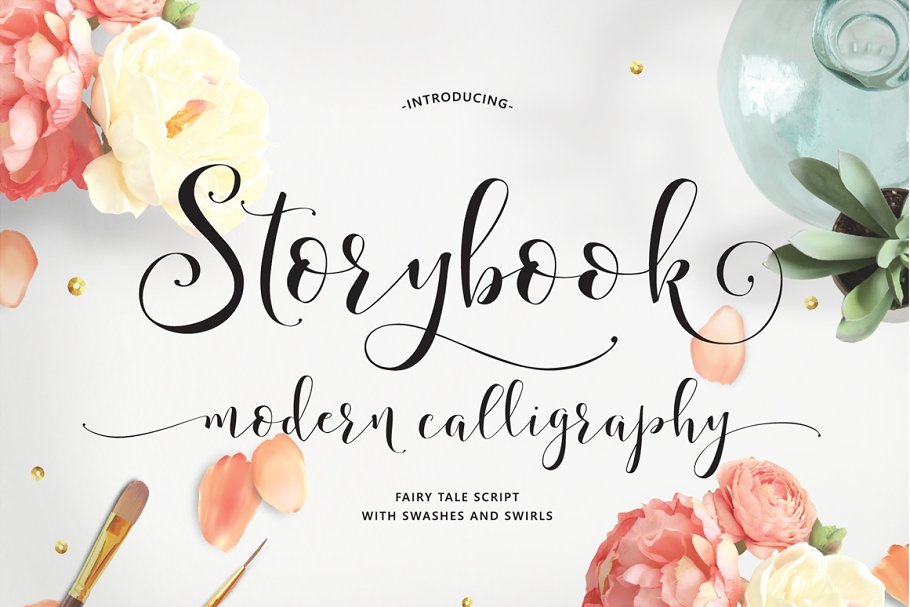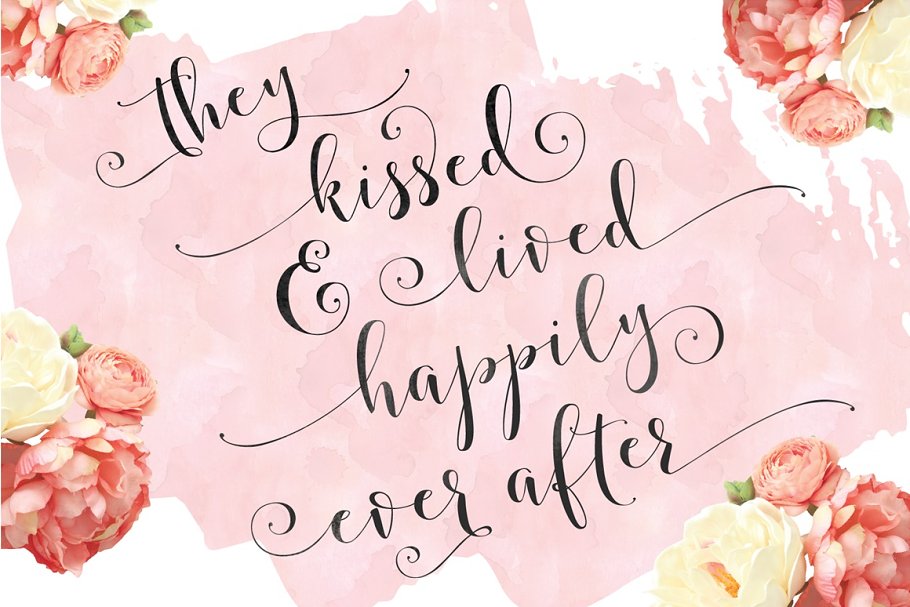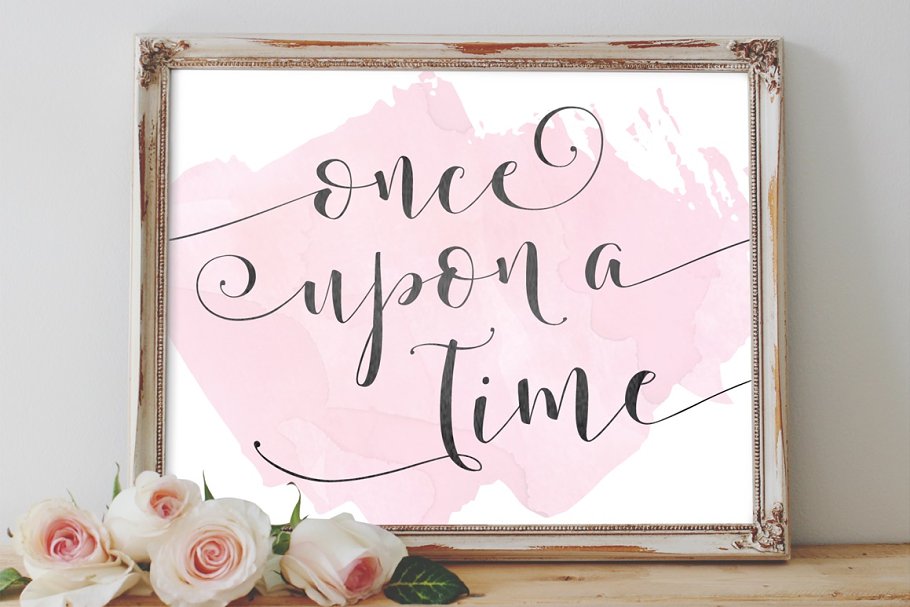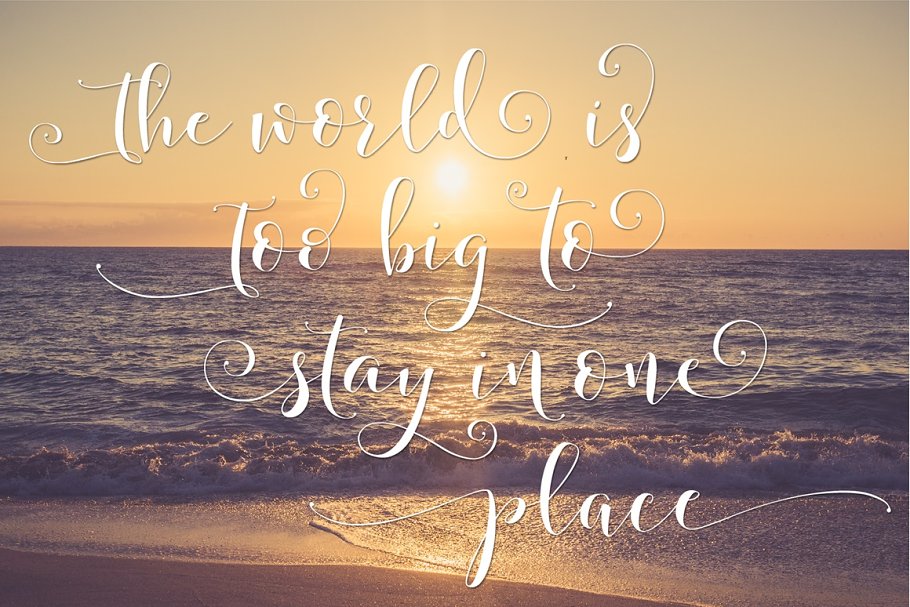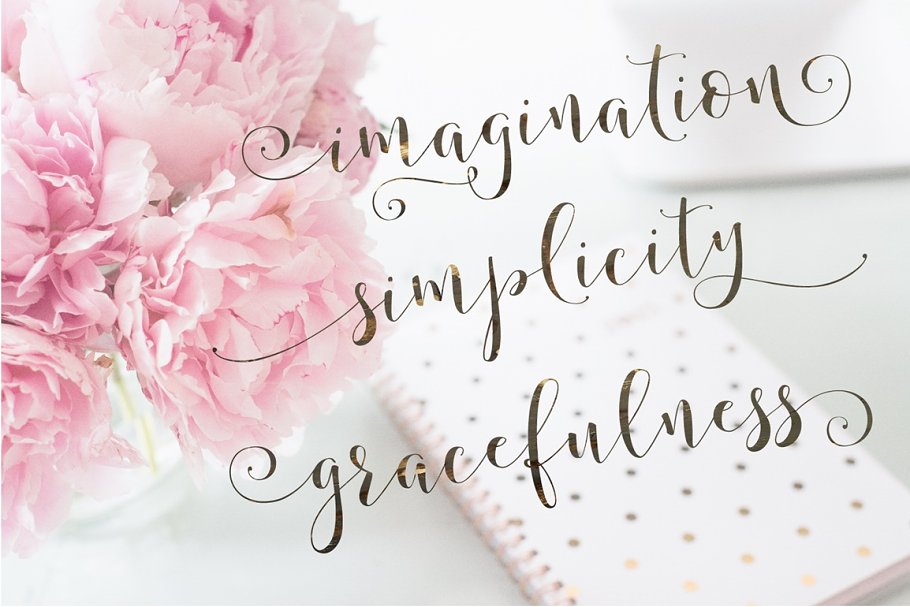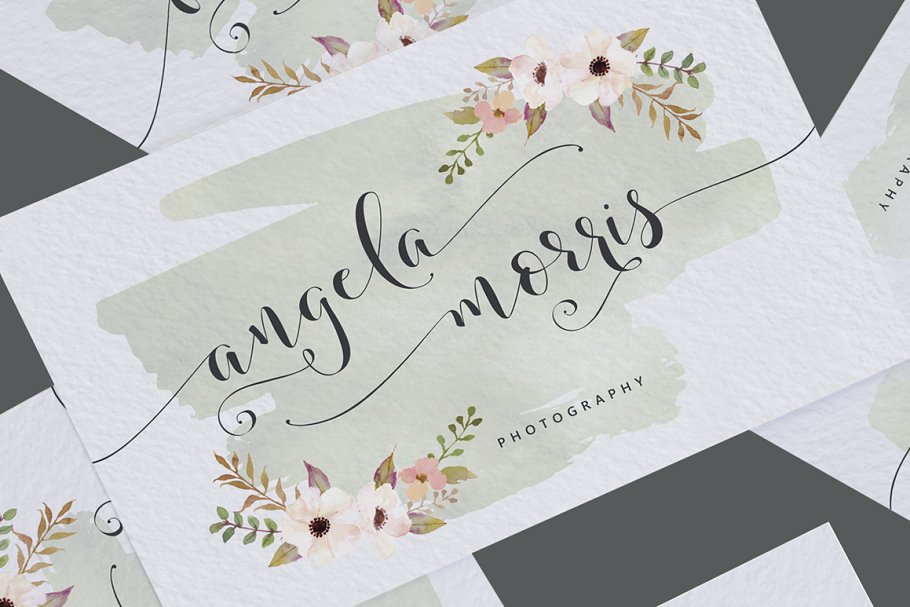
About the Storybook Calligraphy Script Font
Meet Storybook! You asked for longer swashes and bigger swirls – so here they are, This fresh, warm, decorative hand-lettered typeface is perfect for weddings, logos, stationery & more!I’ve included 4 files of additional decorative glyphs, Everything you create will be a completely unique work of art, And so much fun!! The combinations are endless!5 Lower-case styles with Swashes & SwirlsStylistic Common Letter CombinationsMulti-lingual Glyphs Also with sashes and swirls!(Latin-1 Supplement)ÀÁÂÃÄÅÆÇÈÉÊËÌÍÎÏÝÑÒÓÔÕÖØŒÙÚÛÜàáâãäåæçèéêëìíîïñòóôõöðøœùúûüýÿ(Latin Extended-A)ĀāĂ㥹ĆćĈĉĊċČčĎďĐĒēĔĕĖėĘęĚěĜĝĞğĠġĤĥĨĩĪīĬĭĮįİıĹ弾ĿŀŃńŇňʼnŌōŎŏŐŐőŒœŔŕŘřŚśŜŝŠšŤťŨũŪūŬŭŮůŰűŲųŴŵŶŷŸŹźŻżŽžInternational and Special Punctuation100% accessible in all programsIt’s super easy to use